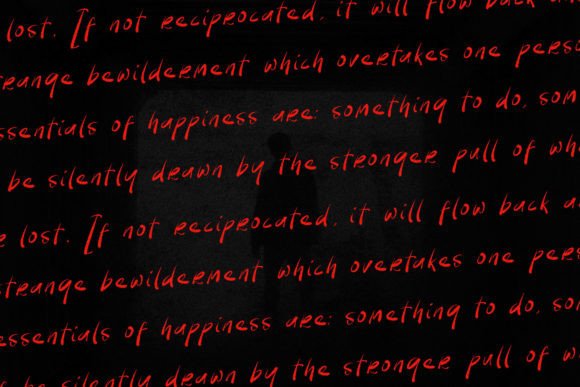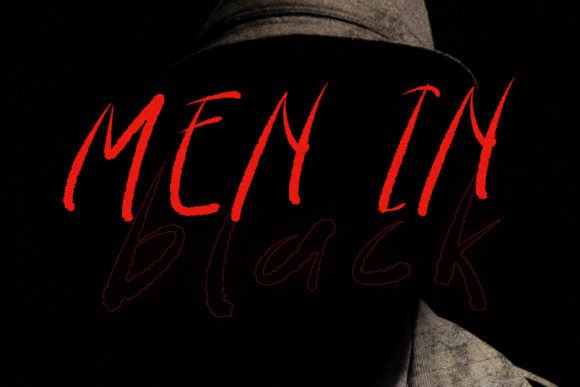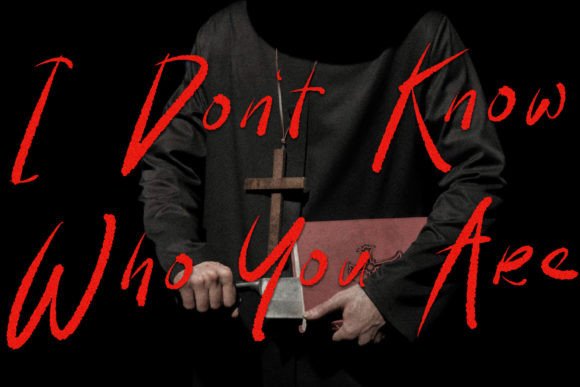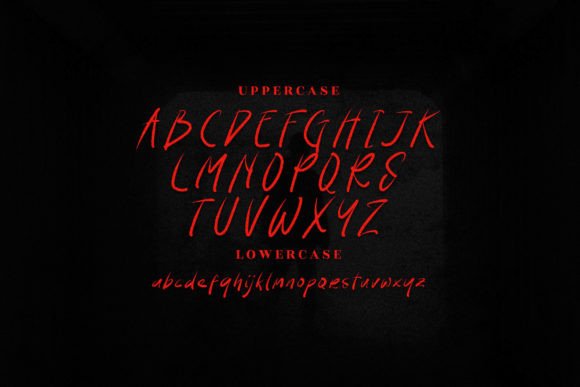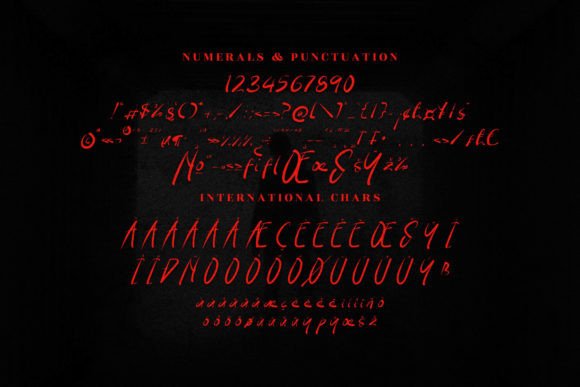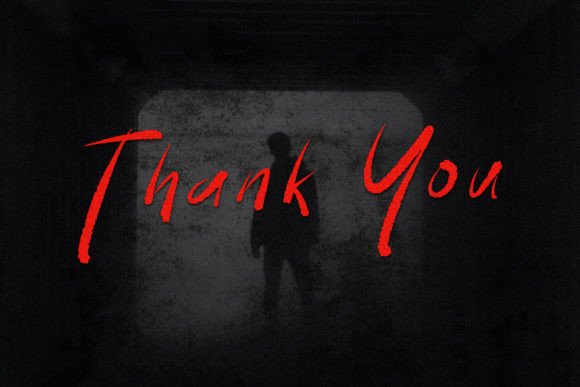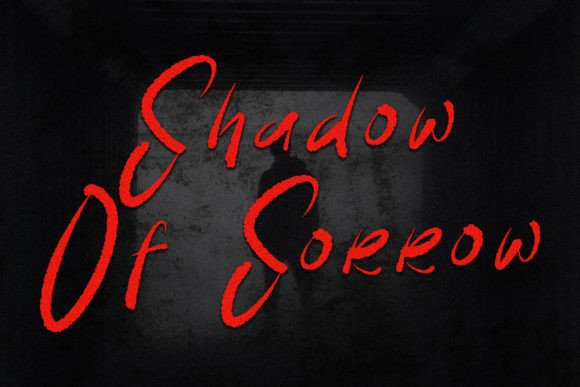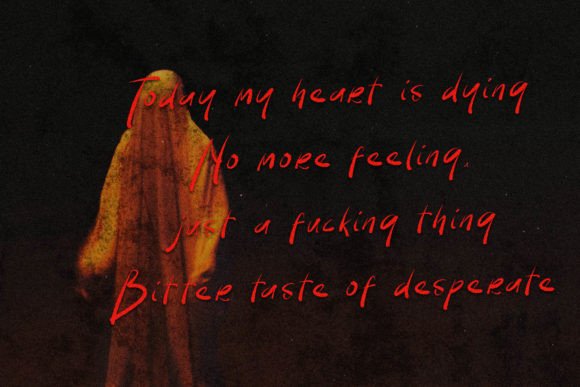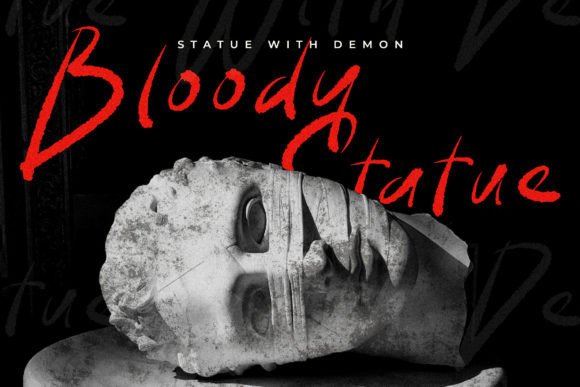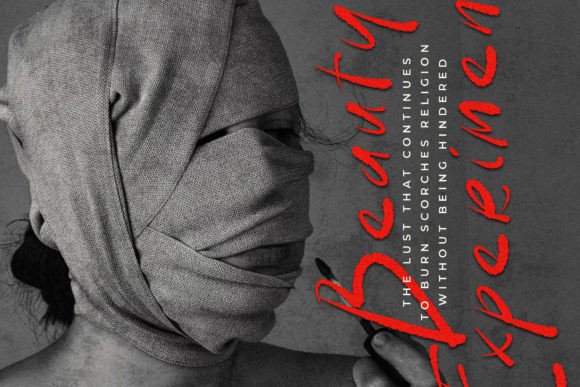
Nightmare Eggplant Font
About Nightmare Eggplant Font
**Nightmare Eggplant** is a spooky and eerie handwritten font designed to give your projects a creepy and unsettling vibe. This unique font is well-suited for a wide range of creative endeavors, including logos, branding projects, homeware designs, product packaging, mugs, quotes, posters, shopping bags, t-shirts, book covers, name cards, invitation cards, greeting cards, labels, photography, watermarks, special events, and any other projects that require a touch of eerie script.
The font’s creepy and handwritten style is the essence of its appeal. It adds a sense of mystery and unease to your designs, making them stand out and evoke an unsettling atmosphere. Whether you’re working on a spooky book cover, creating haunting posters, or designing an eerie logo, **Nightmare Eggplant** seamlessly integrates into various design contexts.
**Nightmare Eggplant** is equally versatile in digital and print applications. Whether you’re using it to craft a chilling digital design or incorporating it into printed materials, the font maintains its creepy and unsettling character. Its readability ensures your message is conveyed effectively, while its handwritten style adds a layer of visual eeriness.
What sets **Nightmare Eggplant** apart is its ability to convey a sense of horror and intrigue. It invites your audience to engage with your creative ideas in a way that resonates with its eerie and handwritten quality. With **Nightmare Eggplant** as part of your creative toolkit, you have the means to infuse a sense of mystery and tension into your designs, making them unforgettable and chilling.
**Nightmare Eggplant** offers a wide array of customization options, allowing you to fine-tune your text to match your creative vision precisely. This flexibility empowers you to craft designs that match your artistic preferences with precision.
In conclusion, **Nightmare Eggplant** is not just a font; it’s a design asset that enhances your creative projects with creepiness, mystery, and a touch of horror. Embrace its handwritten style, and let it inspire you to craft designs that exude an unsettling atmosphere and intrigue. With **Nightmare Eggplant** at your disposal, your creative possibilities are expansive, enabling you to create haunting and memorable works of art through its spooky and eerily crafted typography.